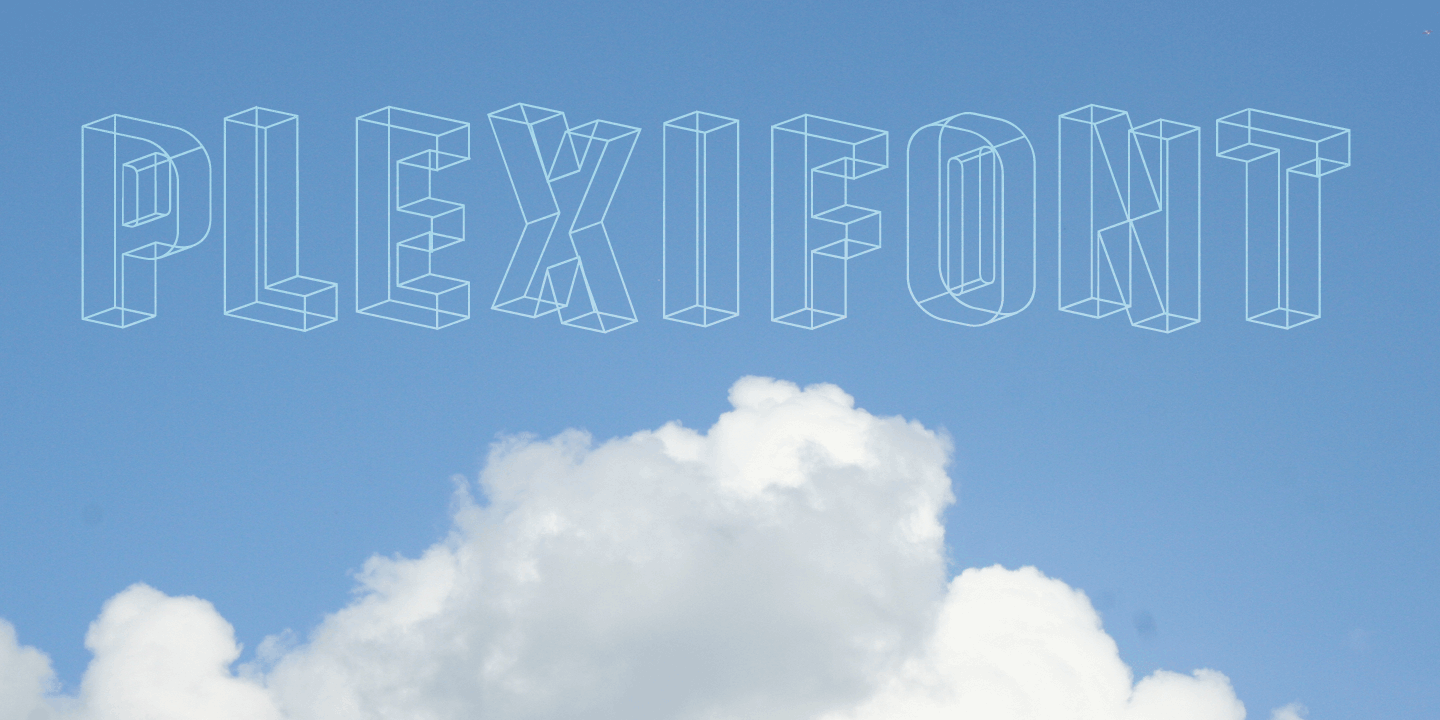
Plexifont
This font was named by Ray Larabie at The TrueType Resource naming contest. It was inspired by the 3D rendering program that I was playing with at the time called Ray Dream, coincidence?